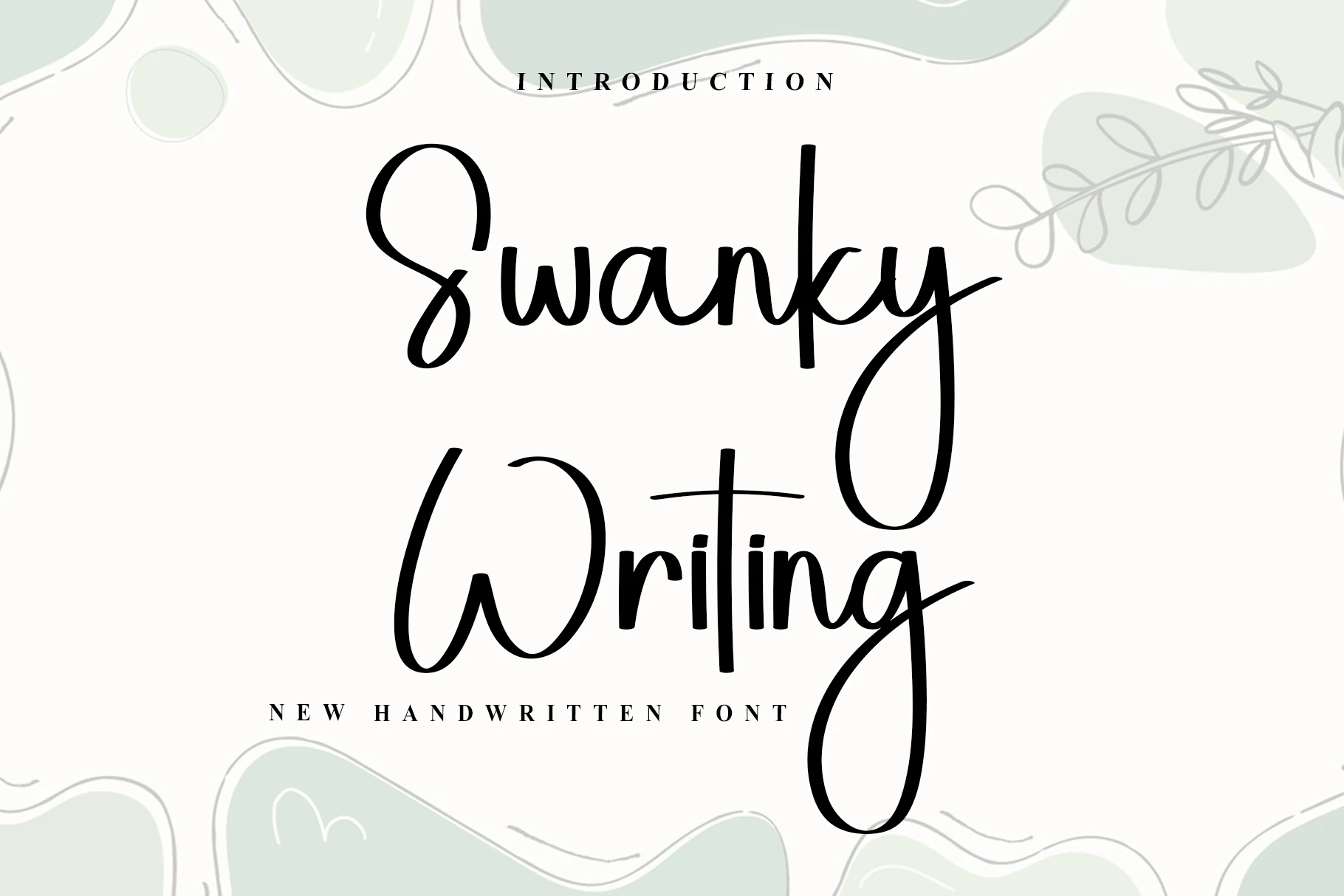
Elegant Wedding Fonts: 31 Stunning Picks for Invites
Elegant Wedding Fonts help create polished invitations, romantic stationery, refined logos, and graceful packaging for wedding-related designs. This collection focuses on script, calligraphy, signature, and decorative styles that work well for names, headers, cards, branding, and celebration graphics.
Flourished Calligraphy Elegant Wedding Fonts
These calligraphy fonts use long swashes, looping capitals, and formal stroke contrast for invitation covers, names, vows, and refined wedding stationery.
Gabriella Script Font
Gabriella Script Font preview with flowing calligraphy letters, heart-shaped flourish, and long elegant swashes
Gabriella Script Font leans into formal calligraphy, with slender entry strokes, shaded downstrokes, and bold swashes that travel far beyond the word. Heart-shaped flourishes and looping terminals give the lettering a romantic voice, while the compact rhythm keeps it graceful rather than overly ornate.
It works especially well where Elegant Wedding Fonts need to feel soft, decorative, and clearly handmade. Use it for names, monograms, or short headings, and leave generous side spacing so the long upper swashes and lower loops don’t crowd borders, florals, or supporting text.
Fuller Font
Fuller Font preview with black elegant script lettering, looped swashes, and ornamental curls
Fuller Font is an ornamental script with tall ascenders, strong shaded strokes, and curling entry and exit lines that give each word a formal, flourished shape. The capital forms are especially decorative, while the lowercase letters keep a steadier rhythm so short titles remain readable.
For Elegant Wedding Fonts with a more embellished mood, Fuller works best on names, invitation headers, and quote-focused layouts. Its extra swirly characters are useful for framing a word or filling open corners, but they need loose spacing and simple supporting type to avoid visual clutter.
Ananda Font
Ananda Font preview with navy calligraphy lettering, long looping swashes, and an elegant handwritten style
Ananda Font has a refined calligraphy feel, with slim connecting strokes, broad looping capitals, and long horizontal swashes that stretch the word into a graceful line. The contrast stays soft rather than dramatic, which helps the script feel polished and readable in short names, signatures, and headline-style phrases.
It fits Elegant Wedding Fonts especially well when you want a clean romantic look without heavy ornament. Pair it with spaced sans serif or serif details for dates and subheads, and leave enough side margin for the extended terminals so the composition keeps its light, flowing balance.
Swanky Writing Font
Swanky Writing Font preview with black handwritten script, tall loops, and long flowing descenders
Swanky Writing Font has a polished handwritten rhythm, with broad rounded strokes, tall looped capitals, and long descenders that give the lettering a graceful vertical flow. The refined letterforms feel smooth rather than rigid, and its delicate ligatures help connected words hold together cleanly in names and short phrases.
It’s a strong choice when Elegant Wedding Fonts need a slightly whimsical finish without losing clarity. Use it for headings, vows, or signature-style branding, and leave room below the baseline so the deep loops on letters like W, y, and g can breathe instead of tangling with supporting text.
Knowledge Font
Knowledge Font preview with red elegant script lettering and long ornamental swashes
Knowledge Font has a graceful calligraphy feel, with smooth stroke contrast, tall looping ascenders, and decorative swashes that curl outward at both ends. The lowercase letters stay connected and fluid, giving the script a polished rhythm that feels romantic without becoming too dense.
It works especially well when Elegant Wedding Fonts need a softer, more formal tone for names or headline phrases. Keep it at a generous size and let the flourishes sit in open space, then pair it with restrained serif or spaced uppercase details so the script remains the focal point.
Intelligent Font
Intelligent Font preview with thin white script, large looping swashes, and delicate calligraphy curves
Intelligent Font is a fine-line script with tall, narrow letterforms, sweeping capitals, and circular terminal loops that give the word a formal calligraphic rhythm. The thin strokes make it graceful rather than bold, so it needs strong contrast and enough scale to keep the delicate connections readable.
For Elegant Wedding Fonts, Intelligent works best on names, invitation covers, greeting cards, and refined social posts where the lettering can stay spacious. Its swashes and alternates help vary title treatments, but the loops should be kept away from dense body text or tight borders.
Elegant Wedding Fonts usually lean more restrained, so this one works best for playful bridal shower cards, thank you notes, quotes, and casual celebration graphics. Keep the wording short, avoid tight line spacing, and use a plain supporting typeface so the loops and bright script character stay readable.
Conclusion
Choose flourished calligraphy for formal invitations, soft signature fonts for refined name marks, bold romantic scripts for display headers, modern handwritten styles for relaxed stationery, and playful display fonts for festive wedding graphics.